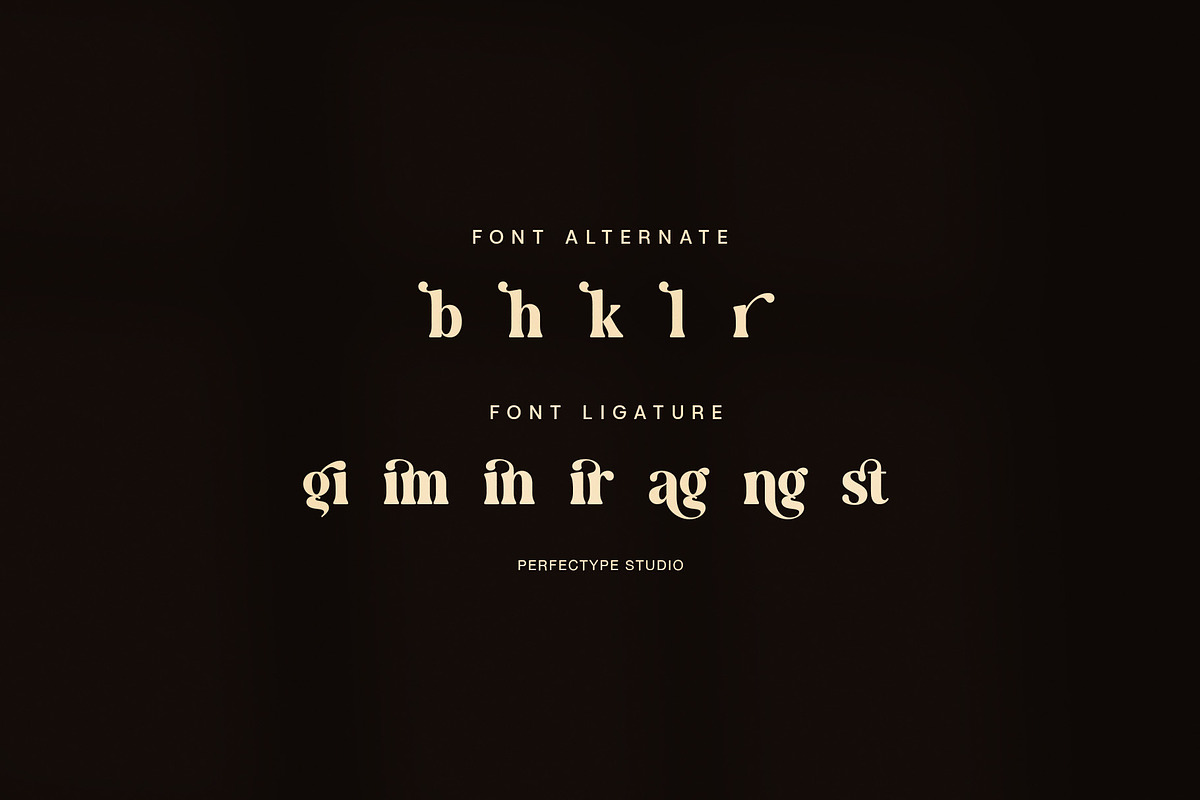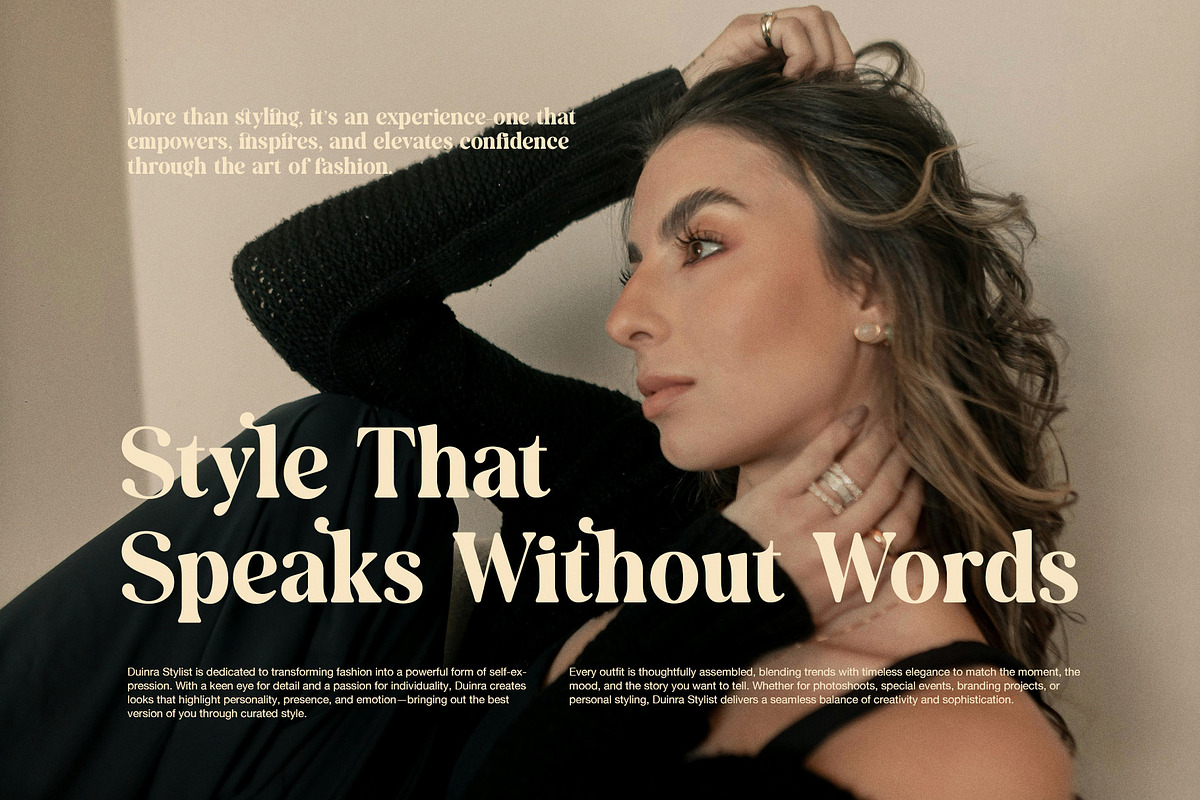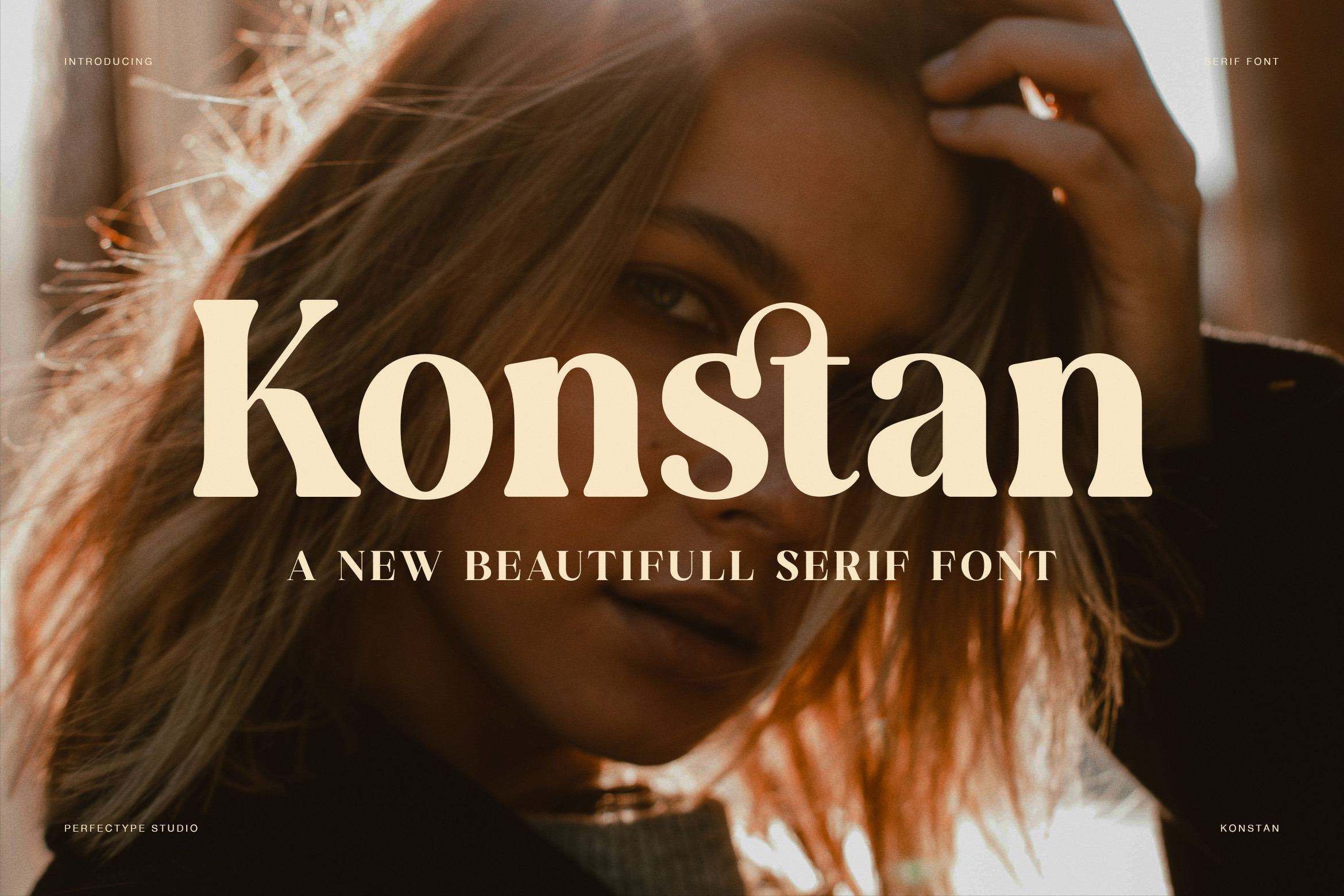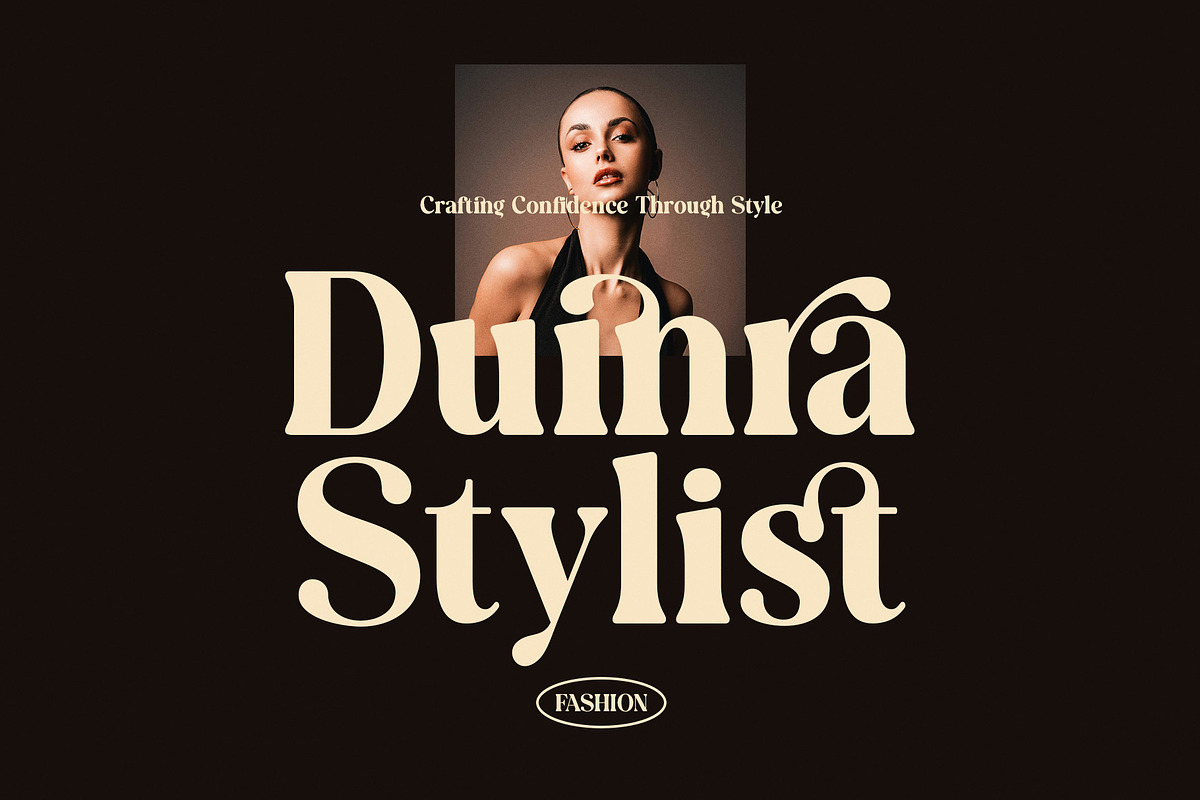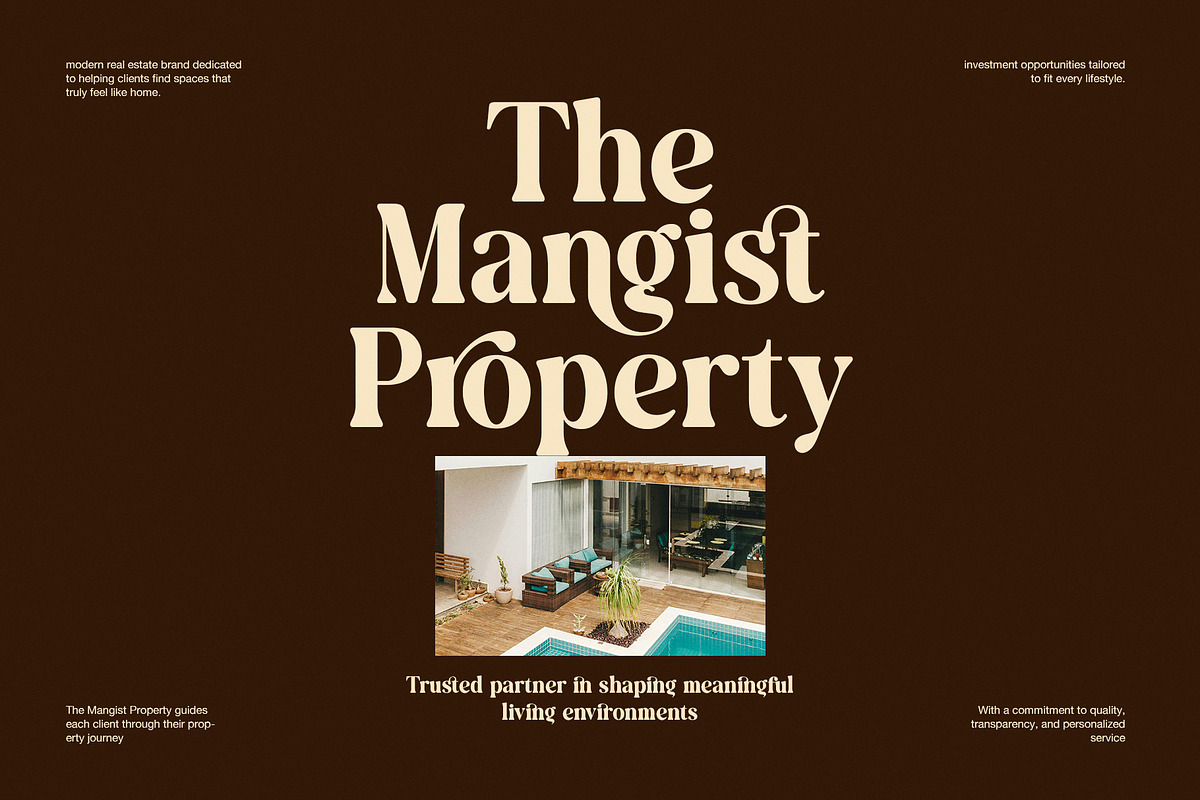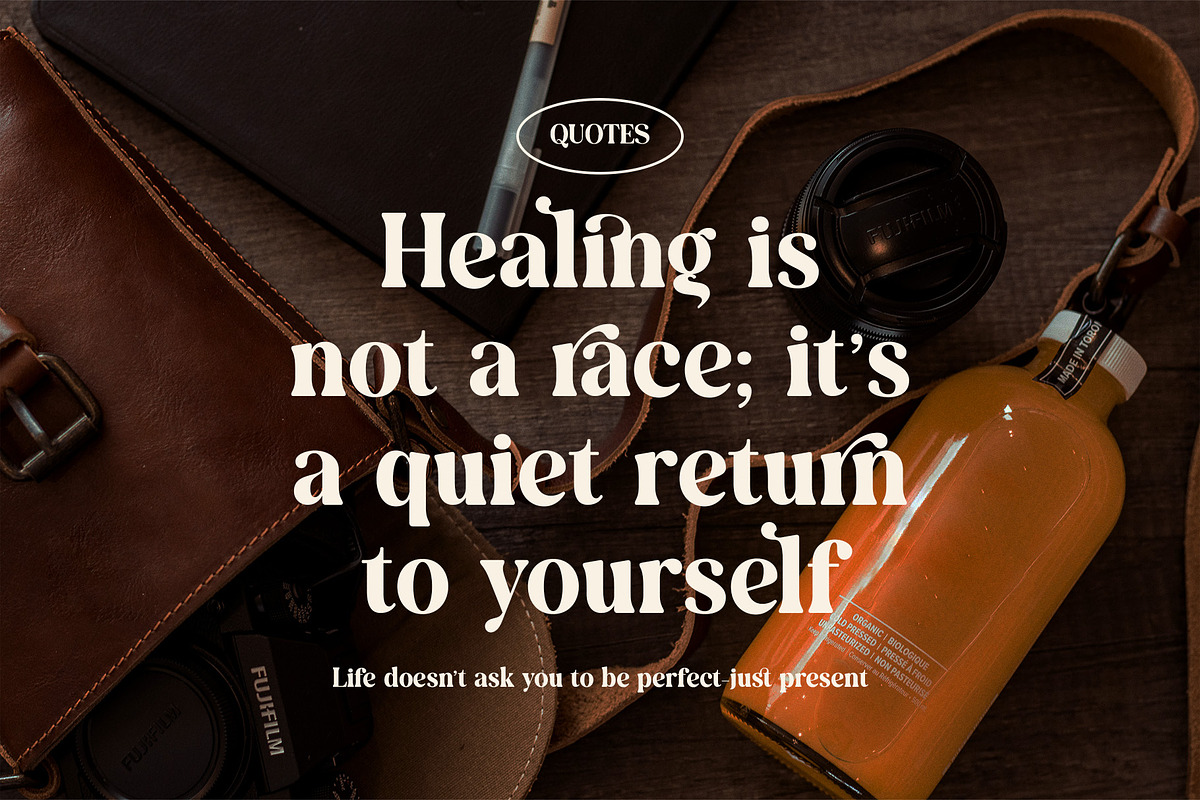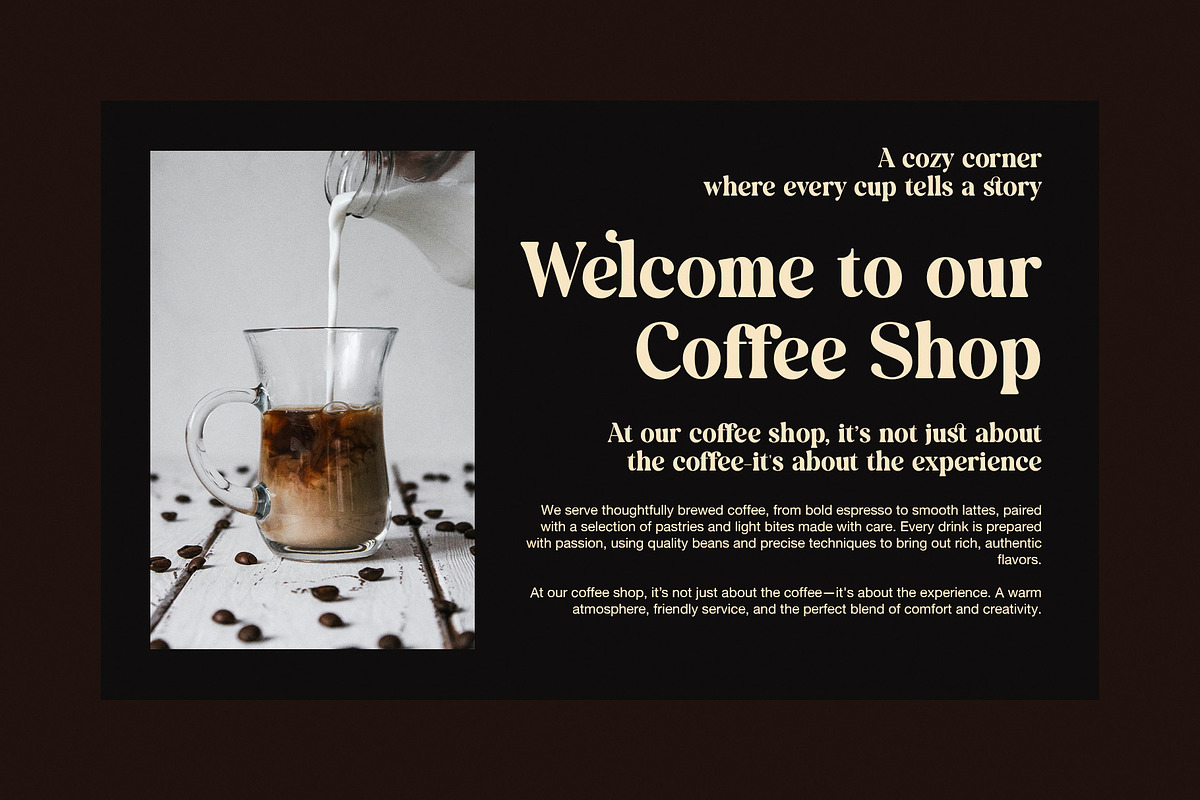
Konstan Elegant Serif Font
Konstan Elegant Serif Font is a refined typeface created for designers who value timeless beauty, balance, and expressive detail. Inspired by classic editorial typography and modern luxury branding, Konstan blends traditional serif structure with soft curves and contemporary proportions. As a result, it feels warm, confident, and visually graceful across many design styles.
From the first glance, Konstan delivers a calm yet premium impression. The letterforms feature smooth strokes, gentle contrast, and rounded terminals that create an inviting rhythm. Therefore, headlines appear elegant without feeling rigid, while body text remains clear and readable. This balance makes Konstan ideal for both statement typography and supporting text.
Moreover, Konstan includes carefully designed alternate characters and ligatures. These features allow designers to create custom wordmarks, expressive headlines, and sophisticated layouts. By activating alternates, each design gains a handcrafted touch while still maintaining consistency. In addition, classic ligatures help improve spacing and visual flow, especially in branding and editorial compositions.
Konstan works beautifully across many creative fields. It suits fashion branding, beauty campaigns, lifestyle websites, editorial layouts, quotes, cafés, real estate presentations, and luxury packaging. Whether you design a magazine cover, a boutique logo, or a refined website hero section, this elegant serif font enhances the message with clarity and emotion.
Furthermore, Konstan performs well in both digital and print formats. Large titles feel bold and confident, while smaller text remains smooth and balanced. Because of this flexibility, designers can rely on one font family for complete visual harmony.
Why choose Konstan Elegant Serif Font?
Elegant serif design with modern softness
Beautiful alternates for creative typography
Classic ligatures for smoother letter flow
Ideal for branding, editorial, and lifestyle design
Strong readability with refined character shapes
If you are searching for an elegant serif font that feels timeless yet modern, Konstan is a confident choice. It helps transform ordinary layouts into refined visual stories with lasting appeal.